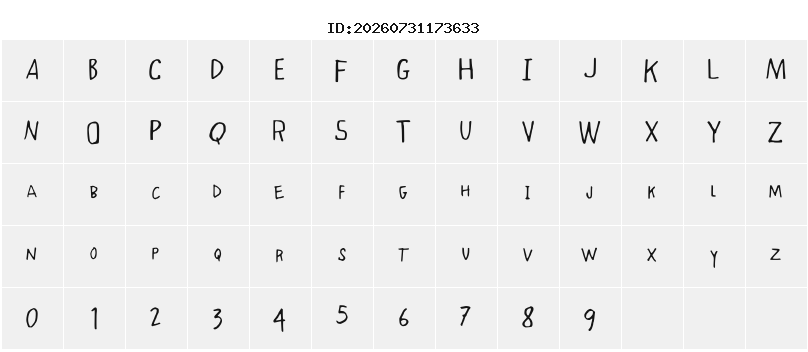
LemonadeLazyDays Preview
• Font Name: LemonadeLazyDays
About LemonadeLazyDays.ttf
LemonadeLazyDays.ttf is a modern, elegant sans-serif font designed for ultimate readability and visual harmony. Perfect for branding, headlines, web design, and print materials.